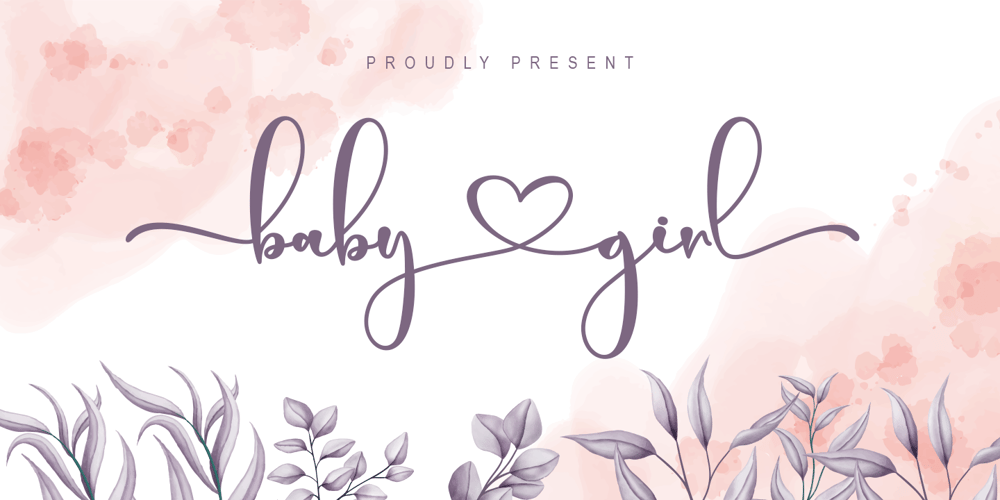
Baby Girl Font Family was designed by Thomas Aradea and published by Letterara. Baby Girl contains 2 styles and family package options. Baby girl is a modern handwritten font with an incredibly friendly feel. It features gorgeous swashes and ligatures that make this script incredibly versatile. Whether you’re looking for fonts for Instagram or calligraphy scripts for DIY projects, Clarissa will turn any creative idea into a true piece of art! This font is PUA encoded which means you can access all of the amazing glyphs and swashes with ease! It also features a wealth of special features including alternate glyphs and ligatures.